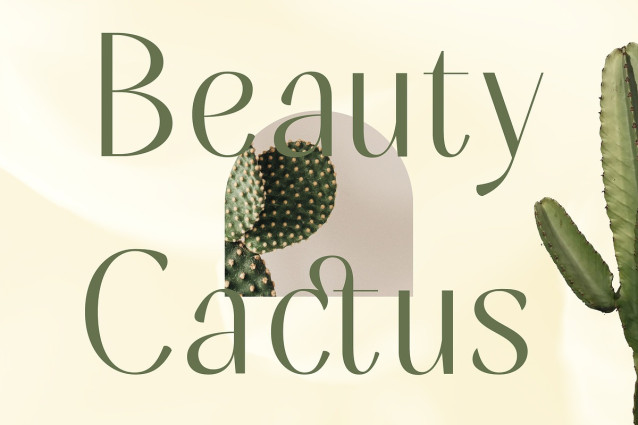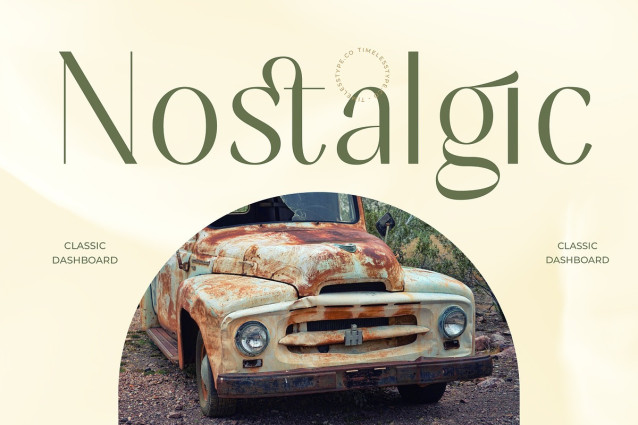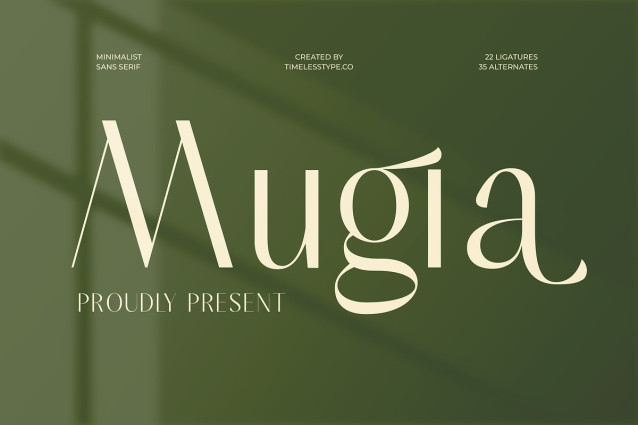
Mugia Font
Mugia Font – Minimalist Sans Serif Font , from Timelesstype.Co , Suitable for any projects such as: logos, branding projects, homeware designs, product packaging, mugs, quotes, posters, shopping bags, t-shirts, book covers, name card, invitation cards, greeting cards, label, photography, watermark, special events, and all your other luxury and beautiful projects that need a Luxury Serif taste.